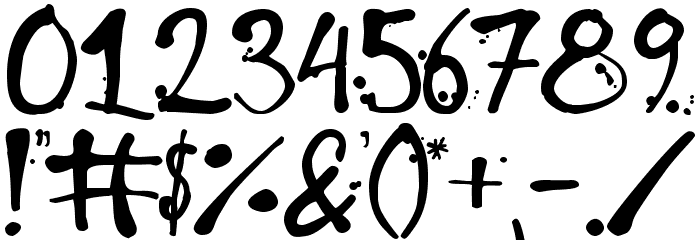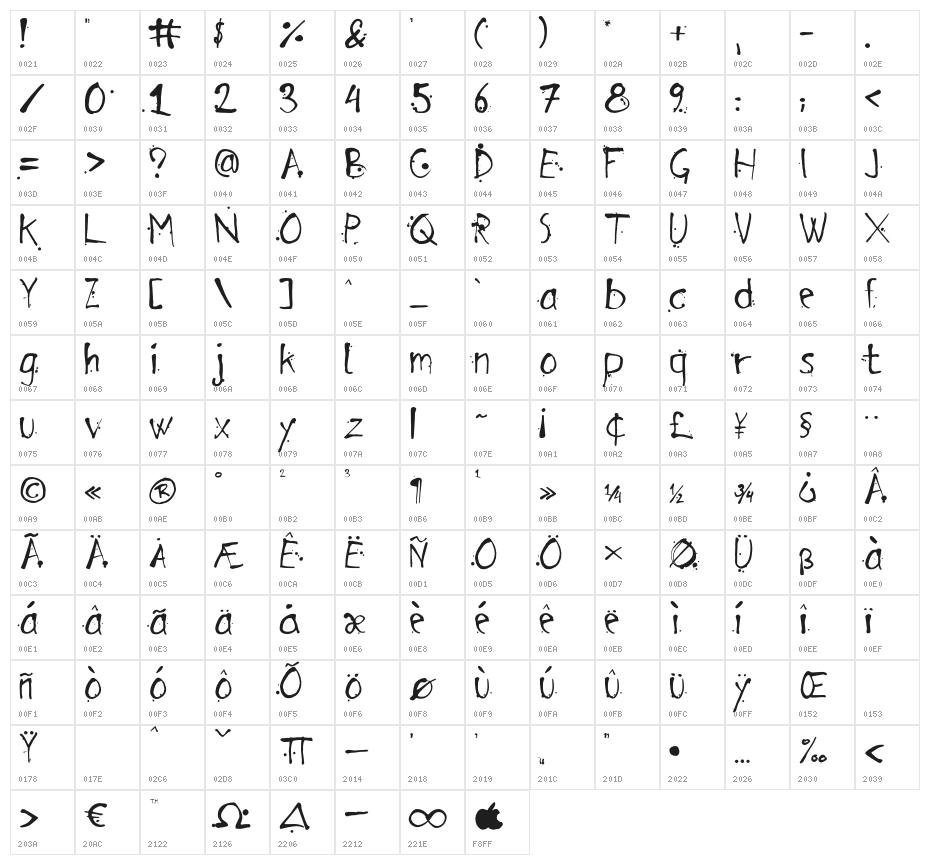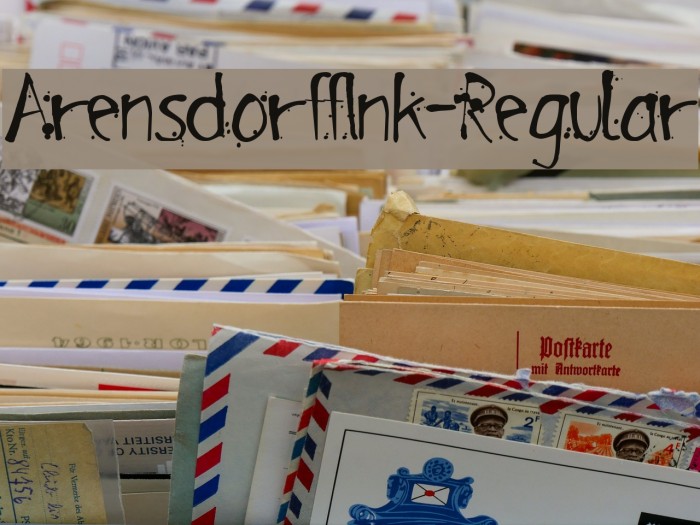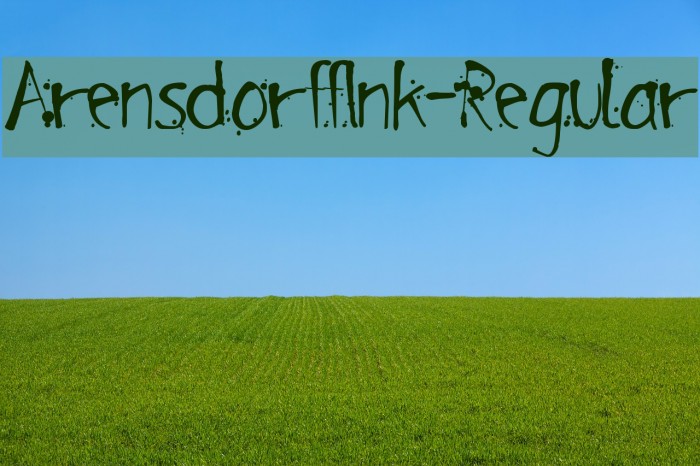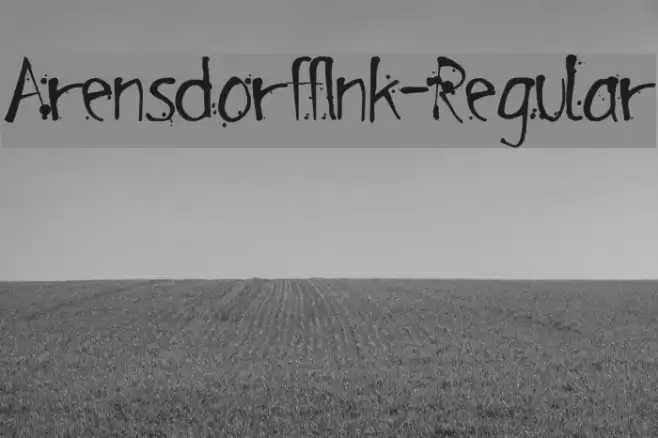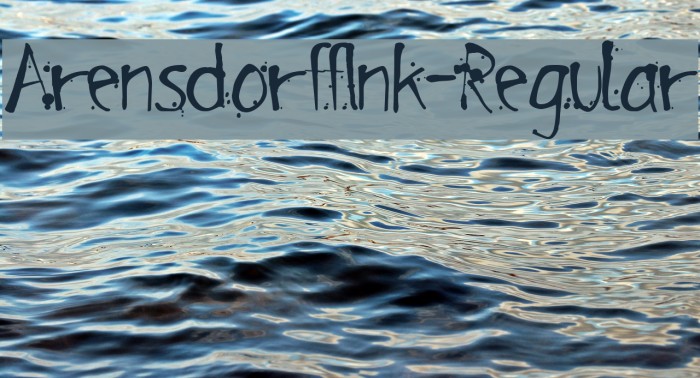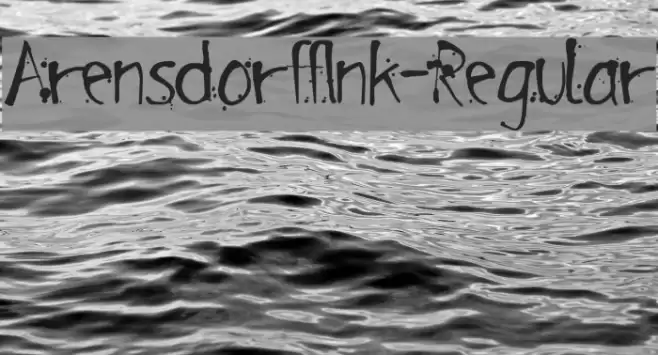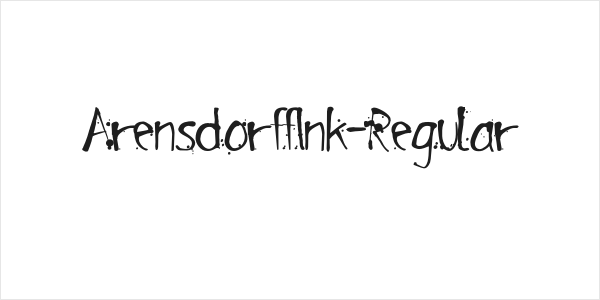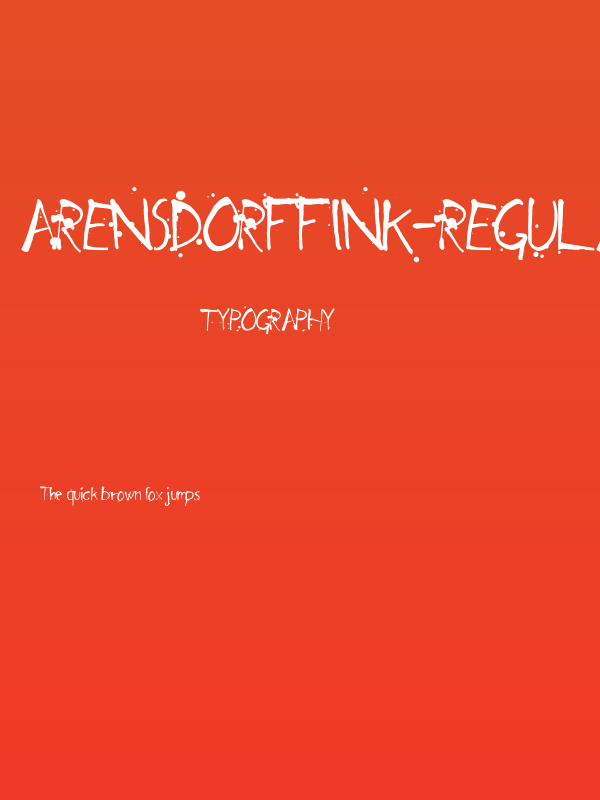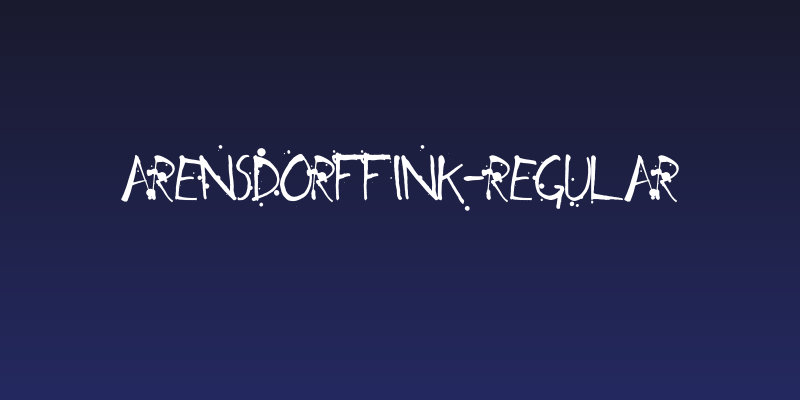
ArensdorffInk-Regular Font
ArensdorffInk-Regular Description
This font exudes a playful and artistic vibe, characterized by its irregular, hand-drawn appearance. The letters have a splattered ink effect, giving it a unique, grungy style. The uppercase and lowercase characters maintain a consistent flow, with varying stroke widths that add to its dynamic look. The numbers and special characters follow the same aesthetic, ensuring a cohesive design. This font is perfect for projects that require a creative and informal touch, such as posters, album covers, or artistic branding.
Lene Arensdorff
| Overall Style | Artistic, Grungy, Playful |
| Use Case | Headlines, Artistic projects, Creative branding |
| Proposed Projects | Ideal for posters, album covers, artistic branding, and creative designs. |